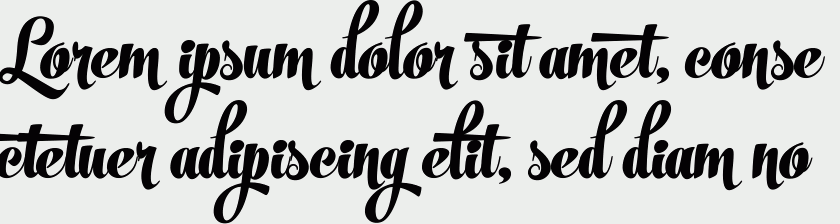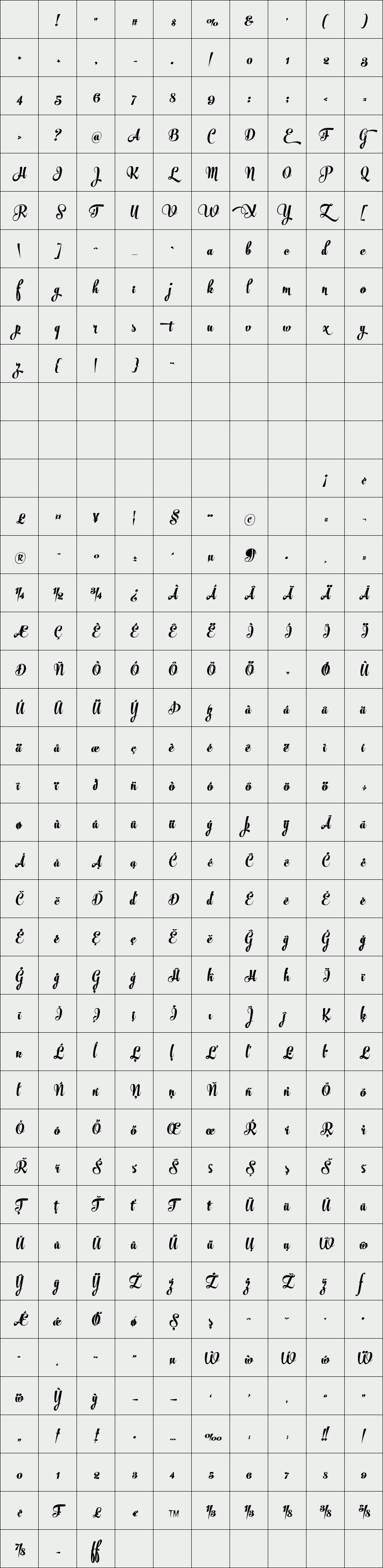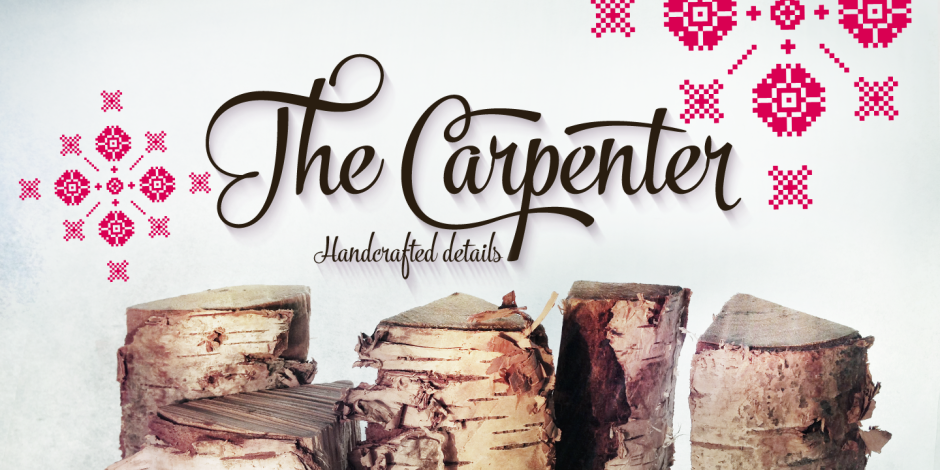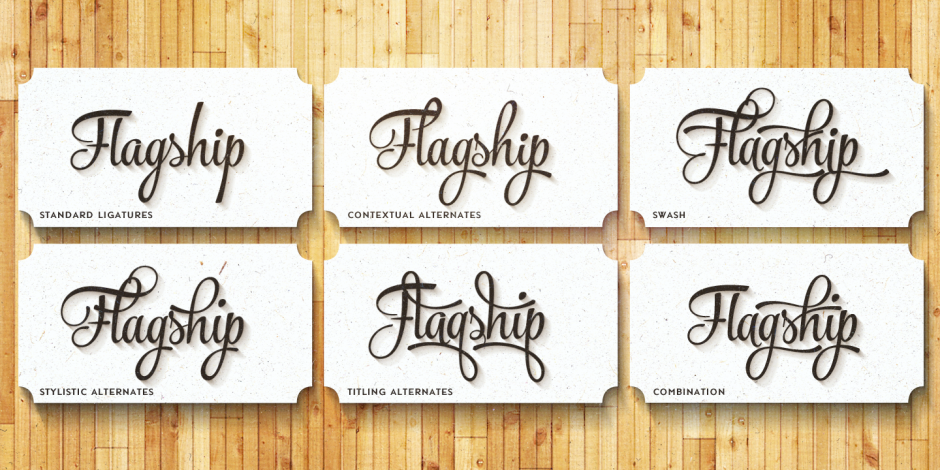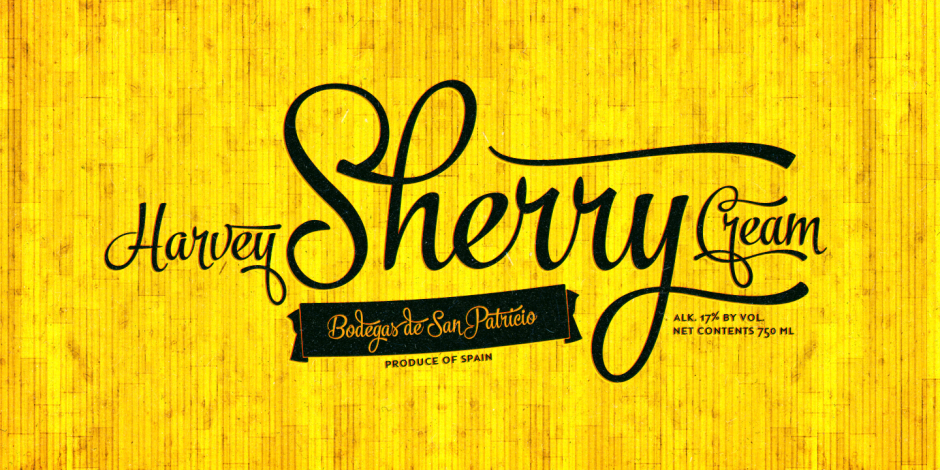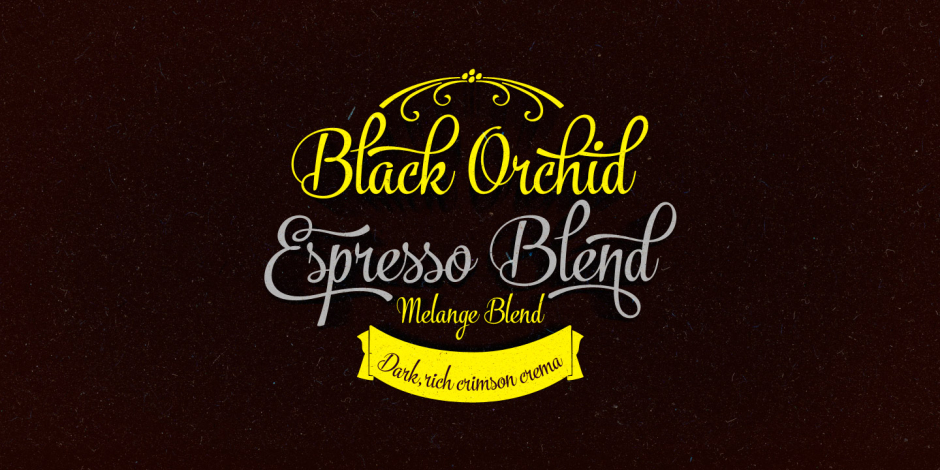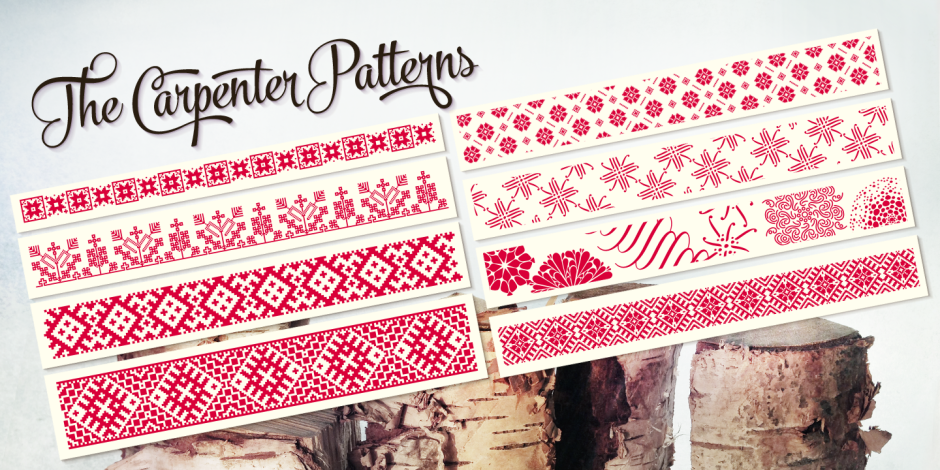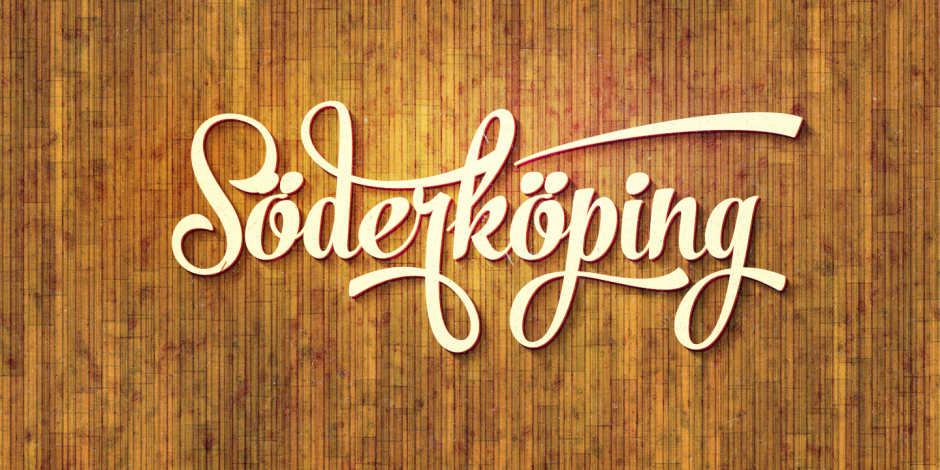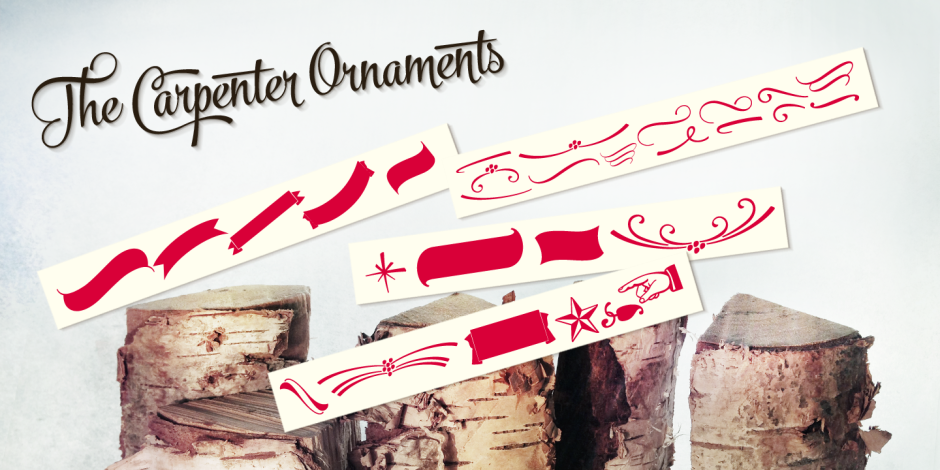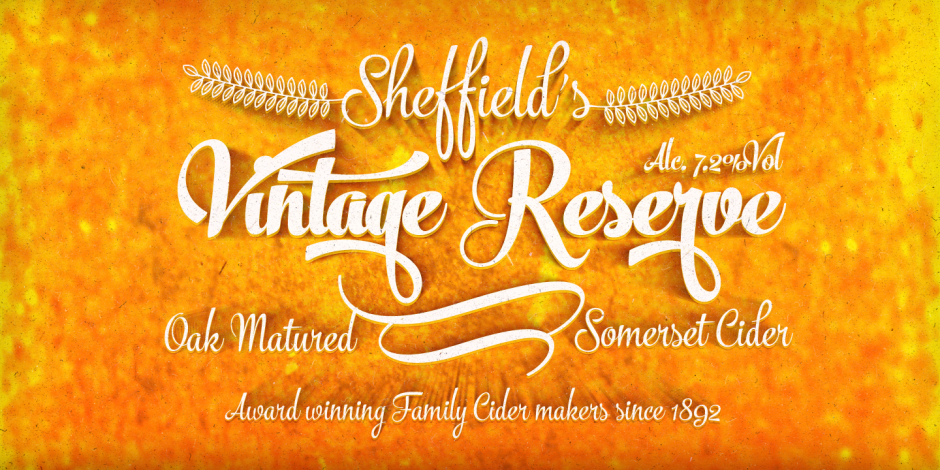
The Carpenter
/ The Carpenter Black
The Carpenter is an elegant and versatile connected script family of three weights. The Carpenter also has a set of ornaments, patterns and pictograms designed to support the script font. The Carpenter has plenty of OpenType features: To activate the alternates click on Swash, Contextual, Stylistic or Titling Alternates or Lining Figures in any OpenType Savvy program or manually choose from even more alternate characters from Glyph Palette.
The Carpenter is an effective and easy to use font for creating ambitious headlines, logos & posters with a custom-made feeling.